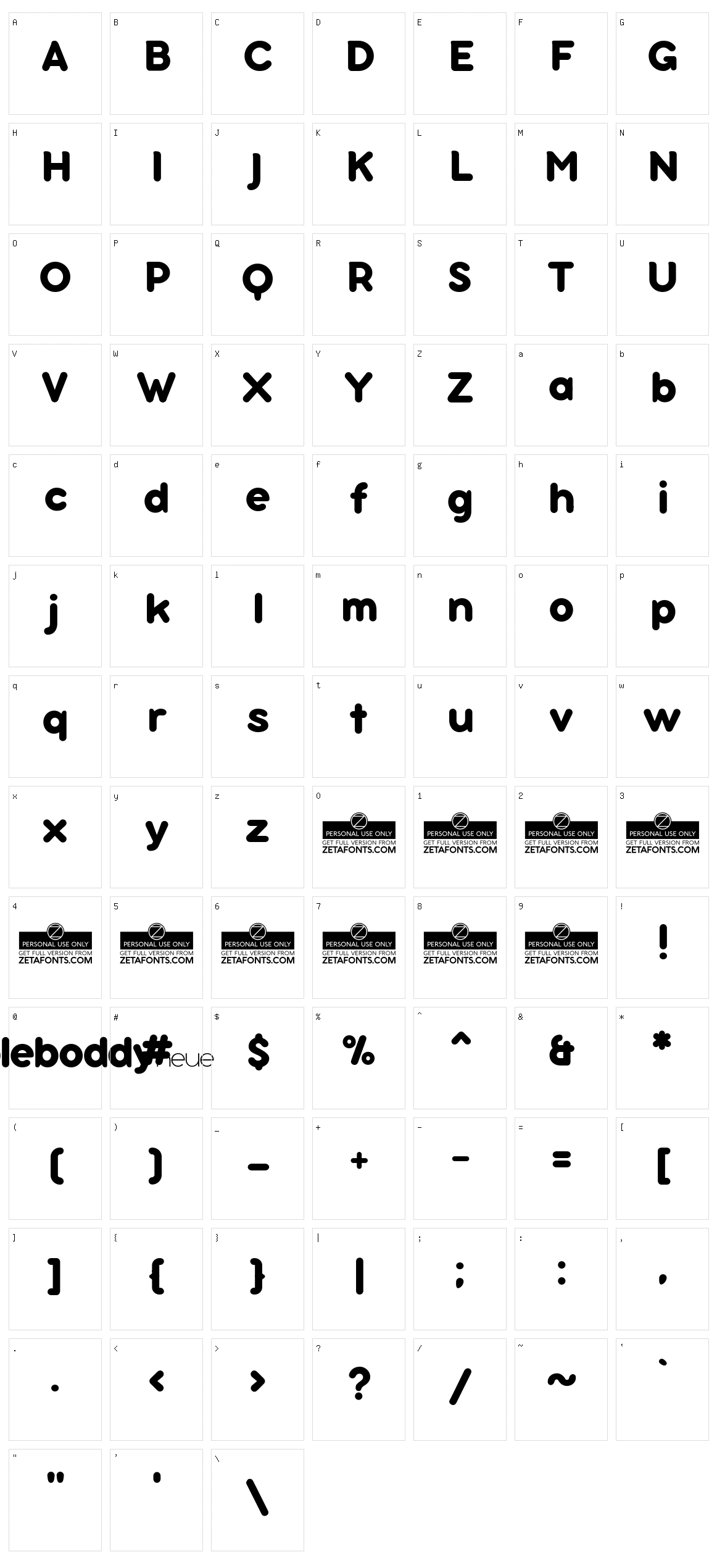
Bubbleboddy Neue is the redesign of one of the first Zetafonts typefaces. It preserves the original round and chunky flavor and adds three new weights and a complete cyrllic and greek character set to infuse your design with an original 80s touch and all the juicy sweetness of a bubblegum. Born for logos and display use, the family has now got a complete facelift with better readability onscreen for web use and offline for text setting.